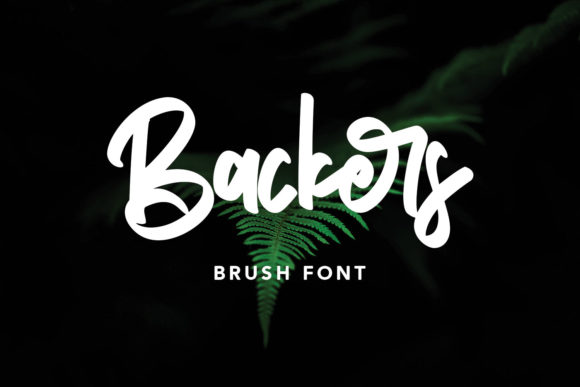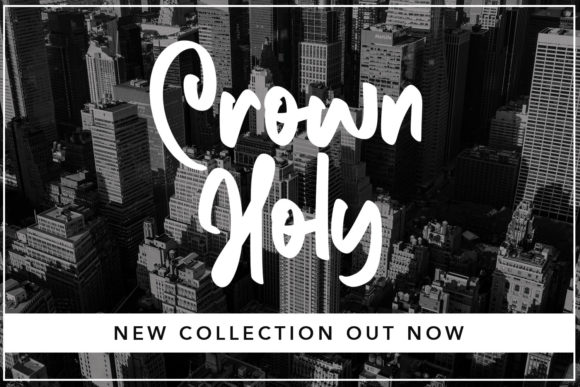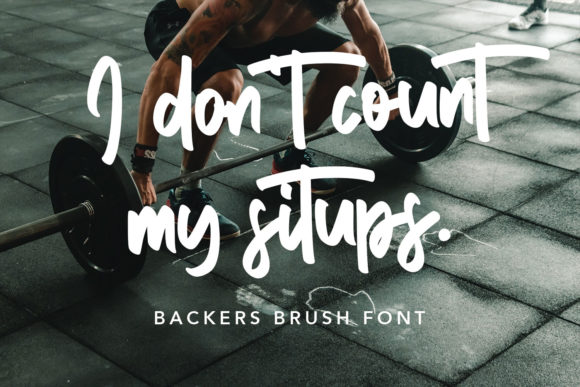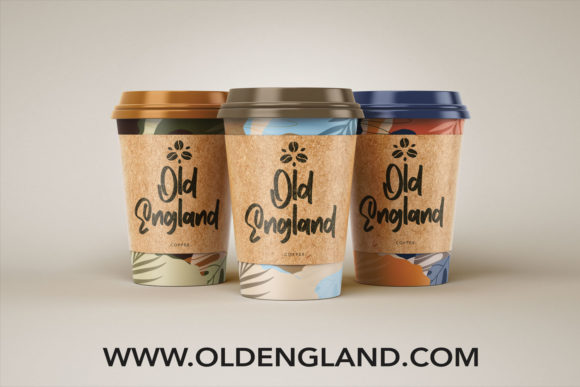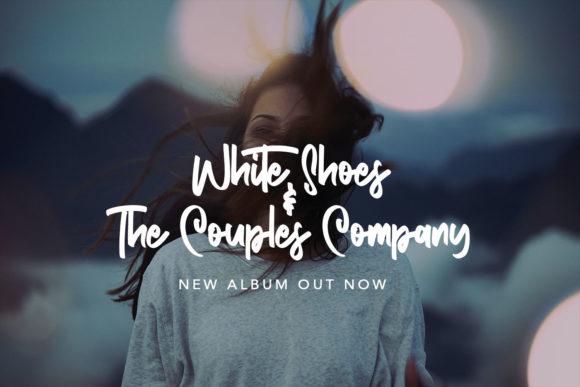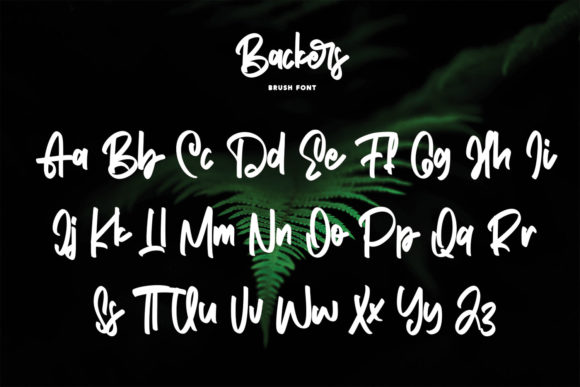
About Backers Font
“Backers” is a flowing and elegant handwritten font, characterized by its distinctive and timeless style. This font is perfect for a wide range of design projects, adding a touch of elegance and sophistication. Here are some creative ideas to make the most of the “Backers” font and create stunning designs:
1. Wedding Invitations: Design romantic and sophisticated wedding invitations using the “Backers” font to create a memorable and special touch.
2. Greeting Cards: Create beautiful and heartfelt greeting cards for various occasions, such as birthdays, anniversaries, and thank-you cards, with the font’s flowing script.
3. Branding and Logos: Use the font to design stylish logos and brand identities, particularly for businesses in the fashion, beauty, or luxury industries.
4. Social Media Graphics: Enhance your social media posts with the “Backers” font to add an elegant and refined look to your content.
5. Stationery and Letterhead: Design professional stationery and letterhead for businesses or personal use with the font’s elegant script.
6. Quotes and Typography Art: Create stunning typography art and posters featuring inspiring quotes and phrases using the graceful “Backers” font.
7. Product Packaging: Apply the font to design product labels, tags, and packaging for a sophisticated and upscale appearance.
8. Book Covers: Use the font for book titles and covers to convey a sense of elegance and timelessness.
9. Website Headings: Incorporate the “Backers” font in website headings and banners to create an eye-catching and elegant design.
10. Event Signage: Design event signage and banners with the font to add a touch of refinement and class.
11. Magazine Covers: Apply the font to magazine covers for a sophisticated and timeless look.
12. Personal Branding: Use the “Backers” font as part of your personal branding on business cards, email signatures, and personal websites.
The “Backers” font’s elegant and flowing style will add a touch of timeless beauty to any design project. Its versatility allows it to be used in various themes and industries, making it an excellent choice for both formal and informal designs. Fall in love with the grace and sophistication of “Backers,” and let it elevate your favorite projects to new heights of elegance and allure!